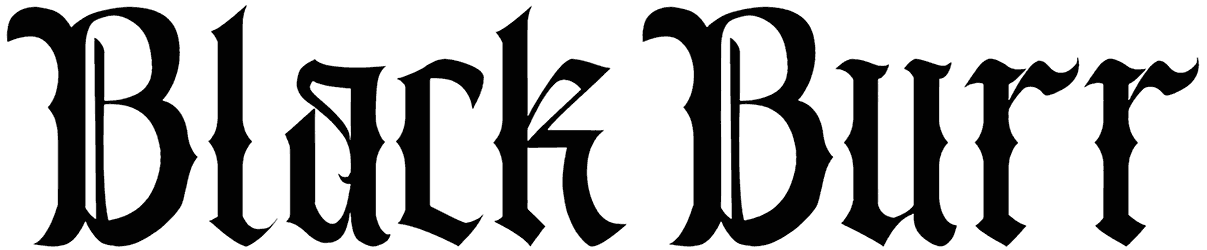
Blackburr Font
Some particular kinds of graphic content, such as strategic video games, historical books, and classic movies, require an exclusive gothic font like Blackburr that can add a vintage touch to them. So we offer graphic designers to use this medieval font to create a high-end artwork that carries a sense of nostalgia, professionalism, courage, and dynamism.